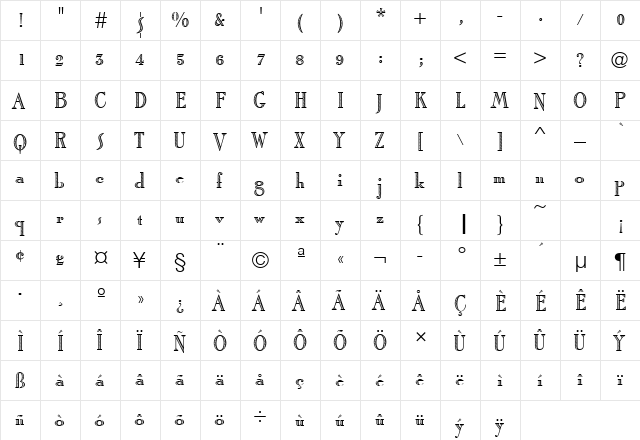
RomanShaAltD
Design Context for RomanShaAltD Typeface
RomanShaAltD offers clean, dependable letterforms without strong stylistic allegiance, making it a practical choice for designers who need flexibility.